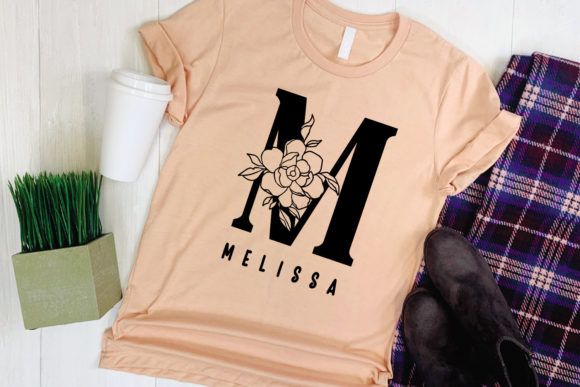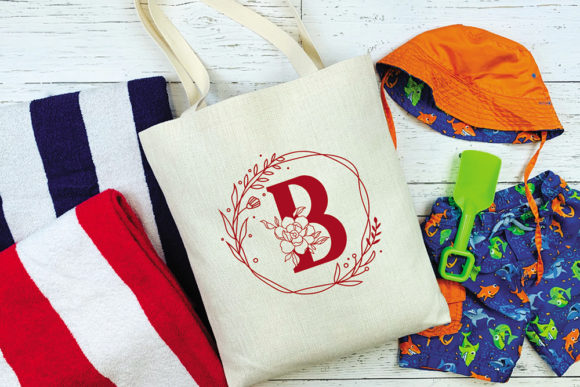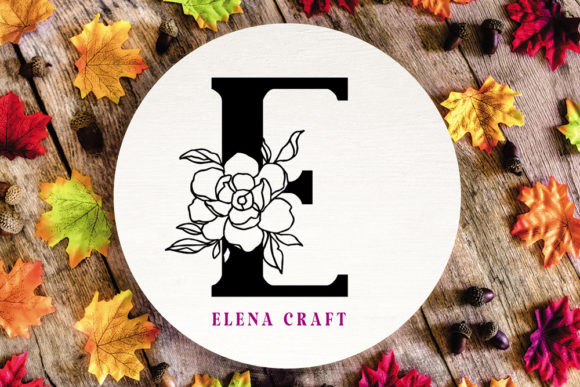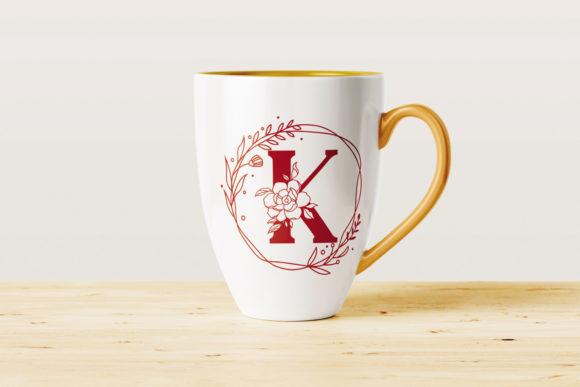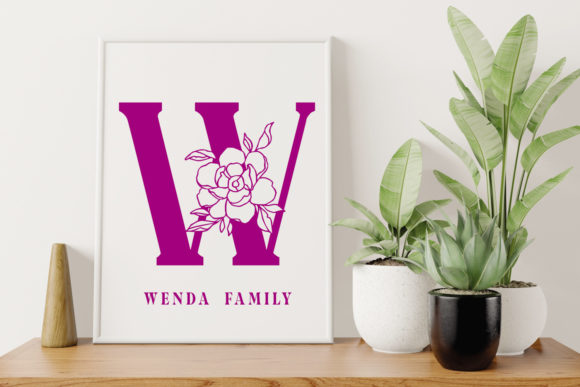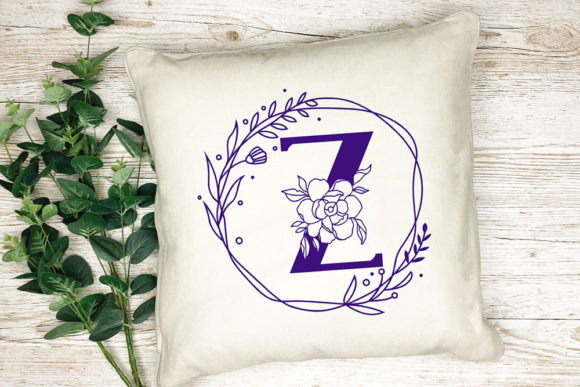
Adding a Touch of Romance to Your Designs
Do you remember the first time you saw a beautifully handwritten love letter or a wedding invitation that made your heart skip a beat? For many of us, it’s the small details that make a design truly special. A thoughtful touch of handwriting can elevate a simple message into a work of art. As designers, we’re always on the lookout for unique and elegant fonts to add that extra oomph to our projects.
Enter the Adenium Monogram Font – a lovely and highly detailed decorative font that’s perfect for adding a touch of romance to your love letters, wedding invitations, and other design ideas. With its intricate details and elegant lines, this font is sure to make your designs stand out from the crowd. Whether you’re a seasoned designer or just starting out, the Adenium Monogram Font is a valuable addition to your toolkit.
Adenium Monogram Font Key Features
- Unique Characteristics: The Adenium Monogram Font features a unique blend of modern and traditional design elements, resulting in a distinctive and eye-catching aesthetic.
- Font Style: The Adenium Monogram Font is available in both regular and bold weights, allowing for a range of design options and creative expression.
Review of Adenium Monogram Font
I’ve had the chance to work with Adenium Monogram Font, and I must say it’s a mixed bag. Let’s start with what works well ✨.
- Unique design: Adenium Monogram Font has a distinct style that’s perfect for creating a bold, eye-catching visual identity.
- High-quality vector graphics: The font files are well-organized, and the vectors are crisp and clean, making it easy to resize without losing quality.
- Customization options: Adenium Monogram Font offers a range of customization options, allowing designers to tailor the font to their specific needs.
However, there are some limitations ⚠️.
- Limited language support: Adenium Monogram Font only supports a limited number of languages, which may be a problem for designers working on multilingual projects.
- Font size limitations: The font’s unique design can make it difficult to read at very small or very large font sizes.
- Lack of webfont support: Adenium Monogram Font does not come with webfont files, which can make it difficult to use on websites or mobile apps.
Overall, Adenium Monogram Font is a solid choice for designers looking for a unique, bold font. However, its limitations may make it less suitable for certain projects or applications.
Here are some tips for getting the most out of the Adenium Monogram Font:
- Use it for titles and headings to add a touch of elegance.
- Pair it with other fonts for a unique and interesting look.
The Adenium Monogram Font is perfect for: